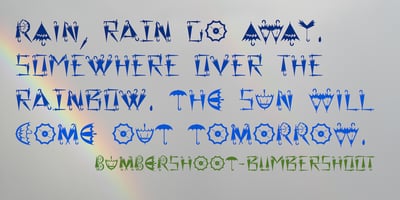
Bumbershoot Font Family was designed by Robert Schenk and published by Ingrimayne Type. Bumbershoot contains 1 styles and family package options. Bumbershoot is a typeface for a rainy day. A letterbat font constructed of umbrellas, it does not have true lower-case letters. Rather it has two mostly different sets of upper-case characters.